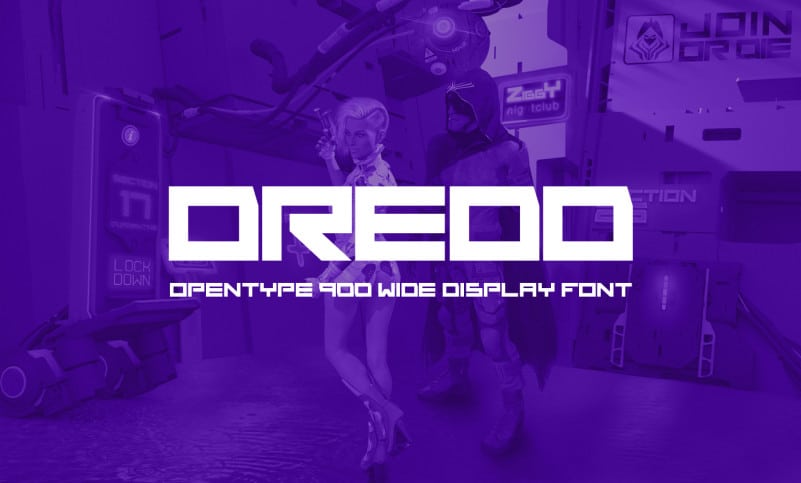
Dredd Display Font Free
Dredd Display Font is black and wide display font created by Koray Öztürk. It comes upper case, numbers, alternatives and some special characters. Dredd has a retrofuturistic style is suitable for marketing and editorial designs.